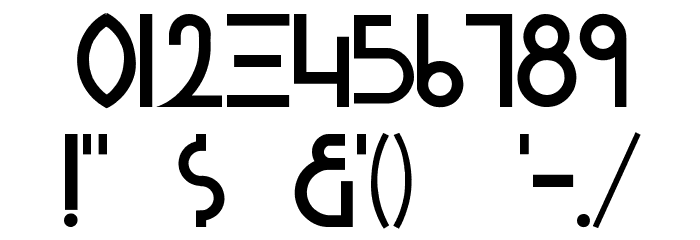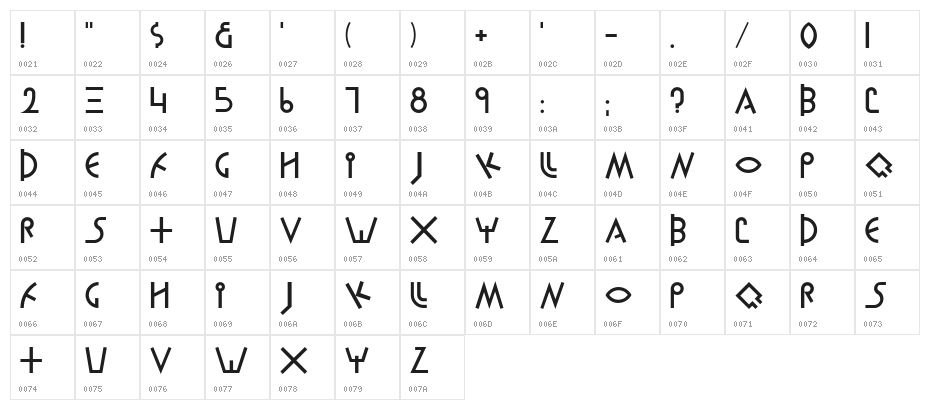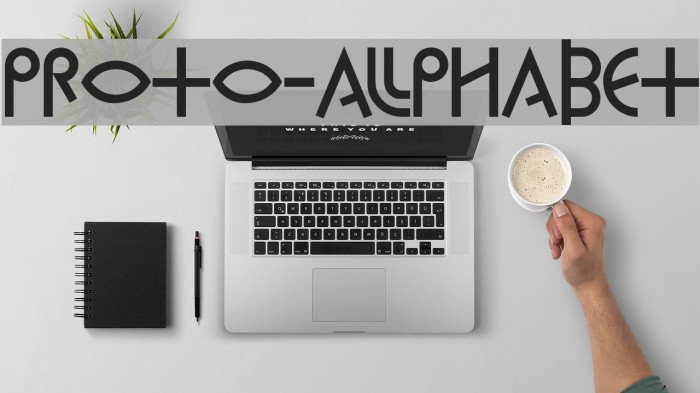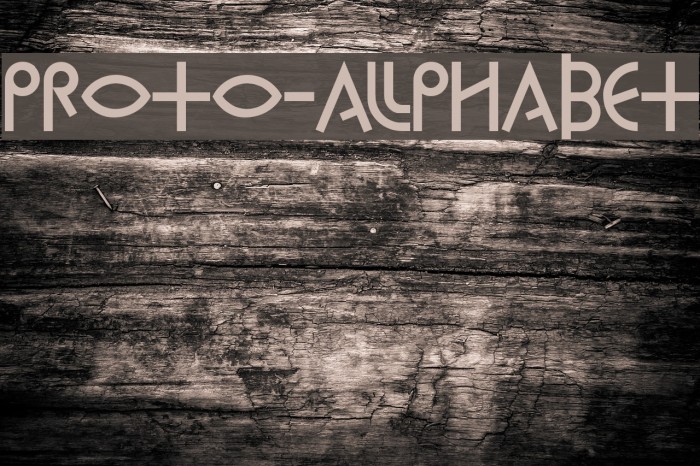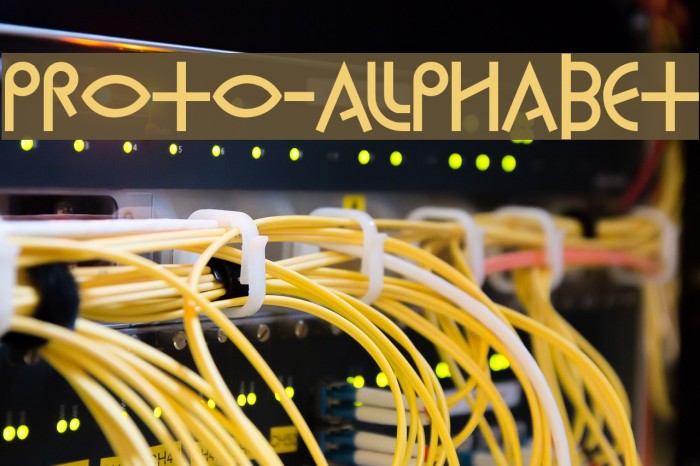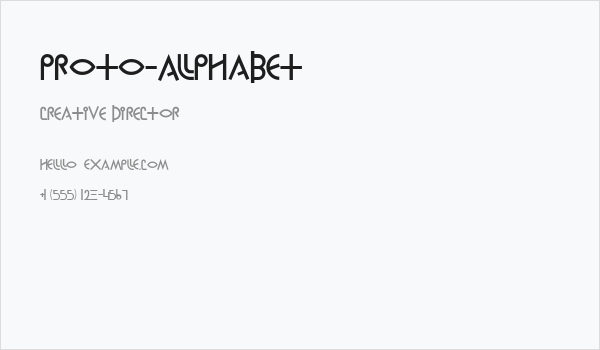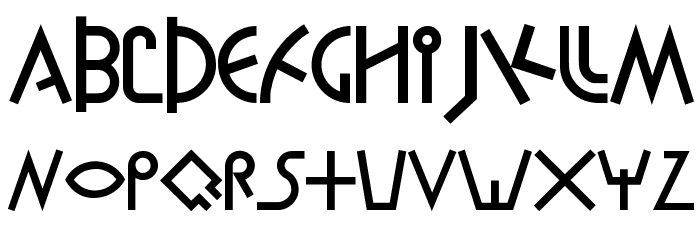
Proto-Alphabet Font
Proto-Alphabet Description
This font features a unique and modern design with geometric elements and sharp angles. The uppercase and lowercase letters share a consistent style, characterized by a blend of straight lines and circular forms. The numbers maintain the same geometric aesthetic, providing a cohesive look across all characters. Special characters are designed to complement the overall style, making this font suitable for creative and artistic projects. The distinctiveness of this font makes it ideal for attention-grabbing headlines and logos.
| Proposed Projects | Ideal for branding, logos, posters, and modern digital artwork. |